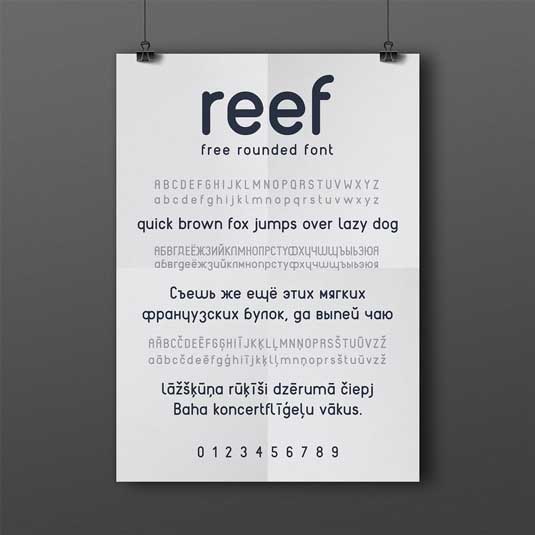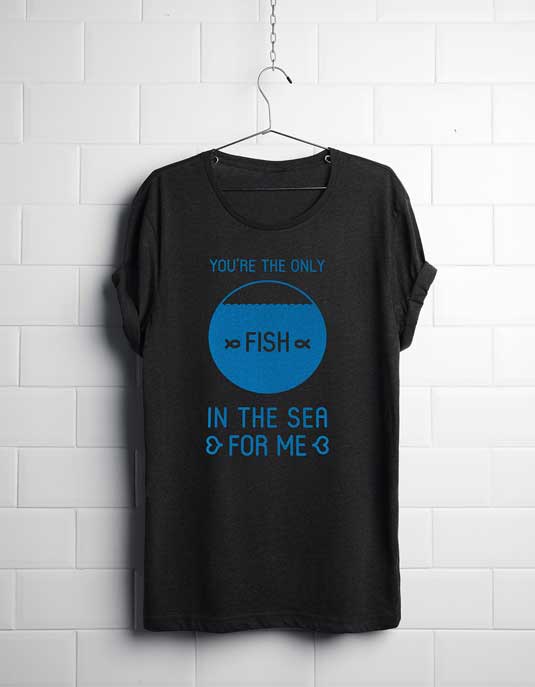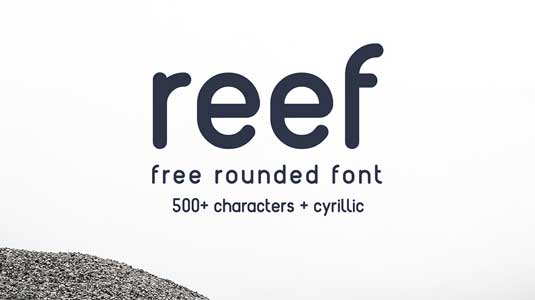
Font of the day: Reef
Every day we showcase the best fonts on the web. Today it's Reef by Gatis Vilaks and Evita Vilaka, which is totally free to download.
Reef by Gatis Vilaks and Evita Vilaka
Today's typeface of choice is Reef, by designers Gatis Vilaks and Evita Vilaka. "Reef is a bold, rounded font," Vilaks comments. "Its strength lies in its simplicity and construction. Every line is geometrically correct, lines are smooth and even with rounded corners."